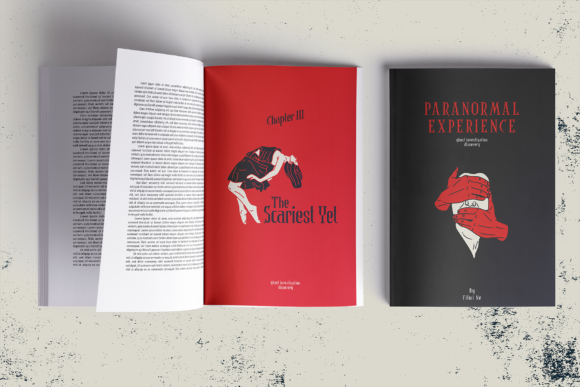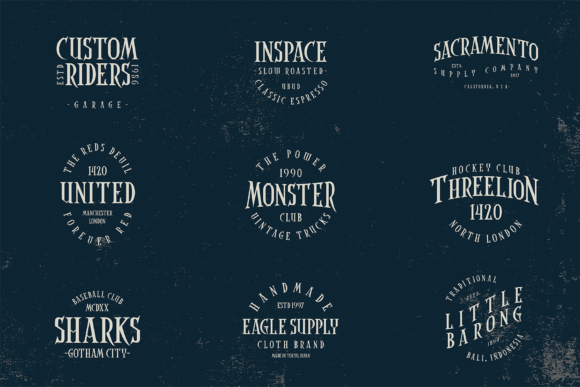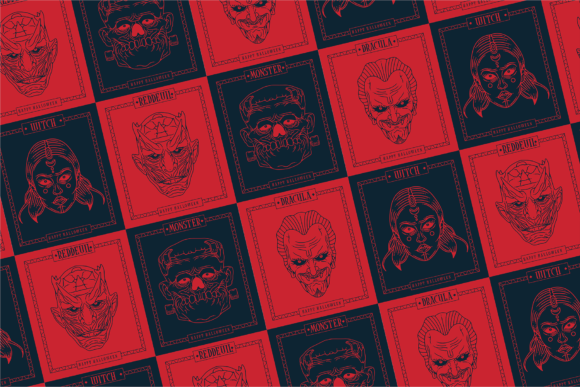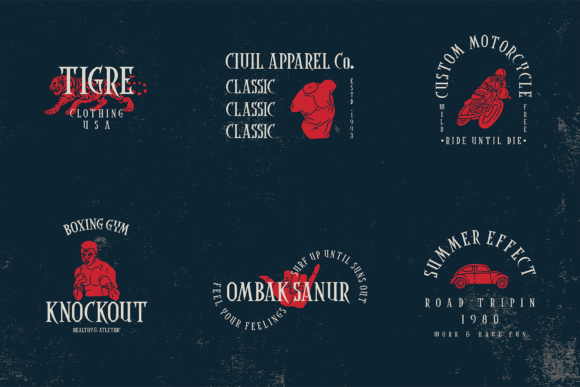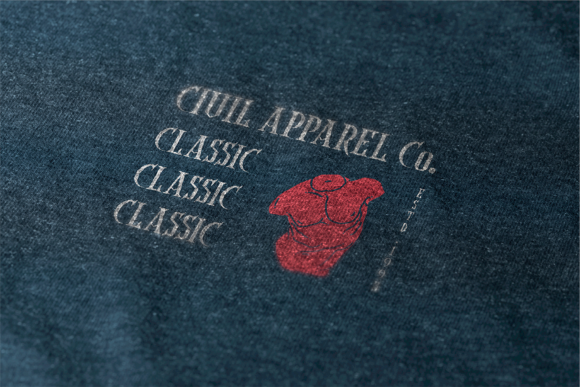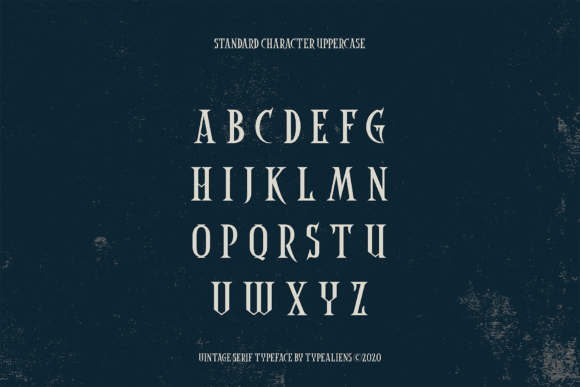
Unveiling Coaster Ghost Font: A Serif Marvel with Vintage and Gothic Flair
In the realm of typography, fonts play a pivotal role in bringing creativity and character to various projects. Among the myriad of fonts available, Coaster Ghost stands out with its distinctive blend of vintage and gothic styles. This serif font has captured the attention of designers and crafters alike, offering a unique aesthetic that can elevate any project. In this article, we’ll delve into the features, applications, and benefits of using Coaster Ghost Font, exploring why it has become a sought-after choice in the design community.
The Distinctive Charm of Coaster Ghost
Coaster Ghost is not just another serif font; it’s a statement piece. Its vintage and gothic influences lend it a classic yet mysterious aura, making it perfect for projects that require a touch of nostalgia or a hint of the macabre. The font’s design is characterized by intricate details and a certain ruggedness that sets it apart from more conventional serif fonts. Whether you’re working on a branding project, a craft endeavor, or digital content, Coaster Ghost offers a versatile look that can adapt to various themes and styles.
Applications of Coaster Ghost Font
The versatility of Coaster Ghost Font makes it suitable for a wide range of applications. Here are a few areas where this font truly shines:
- Branding and Logo Design: The unique vintage and gothic elements of Coaster Ghost make it an excellent choice for brands looking to establish a distinctive identity. It’s particularly effective for businesses in the fashion, beauty, and lifestyle sectors that aim to convey a sense of heritage or mystique.
- Digital Content: For bloggers, influencers, and content creators, Coaster Ghost can add a compelling visual element to websites, social media posts, and digital magazines. Its readability and style make it perfect for headlines, titles, and short paragraphs.
- Crafting and DIY Projects: Crafters and DIY enthusiasts can use Coaster Ghost to add a personal touch to their project documentation, tutorials, or promotional materials. The font’s aesthetic can enhance the perceived value and charm of handmade products or craft tutorials.
- Graphic Design: Graphic designers can leverage Coaster Ghost for various projects, including posters, flyers, brochures, and more. Its distinctive look can help designs stand out in a crowded visual landscape.
Benefits of Using Coaster Ghost Font
Choosing Coaster Ghost Font for your projects comes with several benefits:
- Uniqueness: It offers a fresh alternative to commonly used fonts, helping your project to stand out.
- Versatility: Its vintage and gothic elements make it adaptable to a variety of themes and styles.
- Emotional Connection: The font’s nostalgic feel can evoke emotions and create a deeper connection with your audience.
- Quality and Readability: Despite its intricate details, Coaster Ghost maintains a high level of readability, making it suitable for both digital and print materials.
Tips for Using Coaster Ghost Effectively
To maximize the impact of Coaster Ghost Font, consider the following tips:
- Pair it Wisely: Combine Coaster Ghost with simpler fonts for body text to create visual contrast.
- Adjust Size and Weight: Experiment with different sizes and weights to ensure hierarchy and readability in your designs.
- Consider Context: Ensure the font aligns with the project’s tone and audience. Coaster Ghost’s unique style is best suited for projects that can benefit from its vintage and gothic charm.
Coaster Ghost Font is a remarkable serif font that brings a unique blend of vintage and gothic styles to the table. Its distinctive charm, versatility, and emotional resonance make it an excellent choice for designers and crafters looking to add a touch of originality to their projects. By understanding its applications, benefits, and how to use it effectively, creatives can unlock the full potential of Coaster Ghost and elevate their work to new heights.